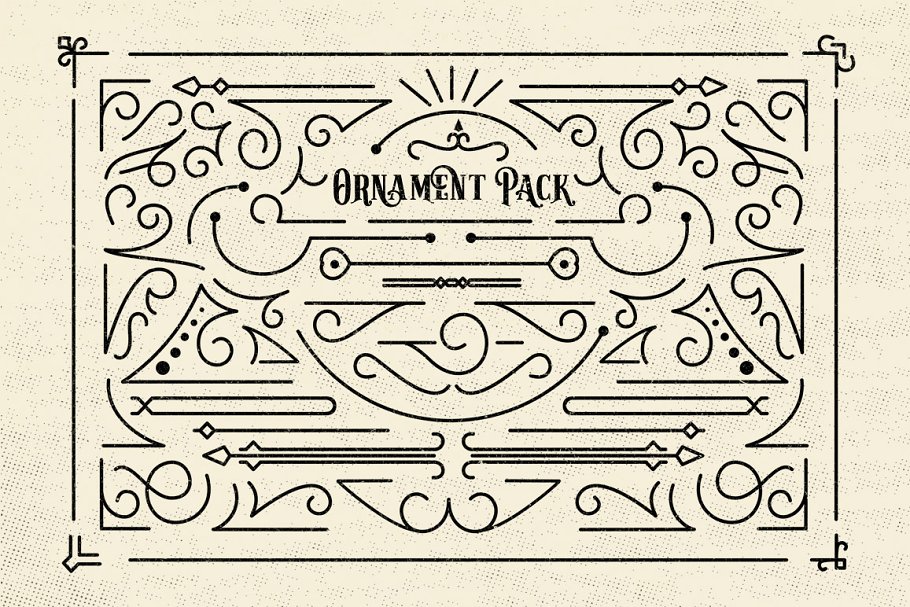
Introducing Sarcastic Typeface + Extras - the perfect font for coffee shop owners, designers, and creatives alike. Created by the talented Teuku Dq Firnanda, this font family is inspired by classic posters and features a unique handmade display style that is sure to catch the eye of anyone looking to elevate their designs.
With its comprehensive set of uppercase, lowercase, numerals, and punctuations, this font is incredibly versatile and comes with various opentype alternates, common ligatures, and swash characters that let you customize your designs with ease. This makes it perfect for a wide range of applications, including logotypes, letterheads, posters, apparel design, labels, and more.
Sarcastic Typeface + Extras also comes with a range of OpenType features, including swash, standard ligatures, contextual alternates, stylistic alternates, and all alternates. This font works best with open-type friendly applications, and if you need help accessing the alternate glyphs, you can check out the helpful guide included with the font.
In addition to the regular and inline versions of the font, Sarcastic Typeface + Extras also includes a bonus set of Hardline.TTF and Hardline Stencil.TTF fonts, as well as retro ornaments and badges in AI and EPS formats.
In summary, Sarcastic Typeface + Extras is an eye-catching, versatile, and high-quality font family that is perfect for anyone looking to add a touch of personality and style to their designs. So why wait? Download Sarcastic Typeface + Extras today and take your designs to the next level!